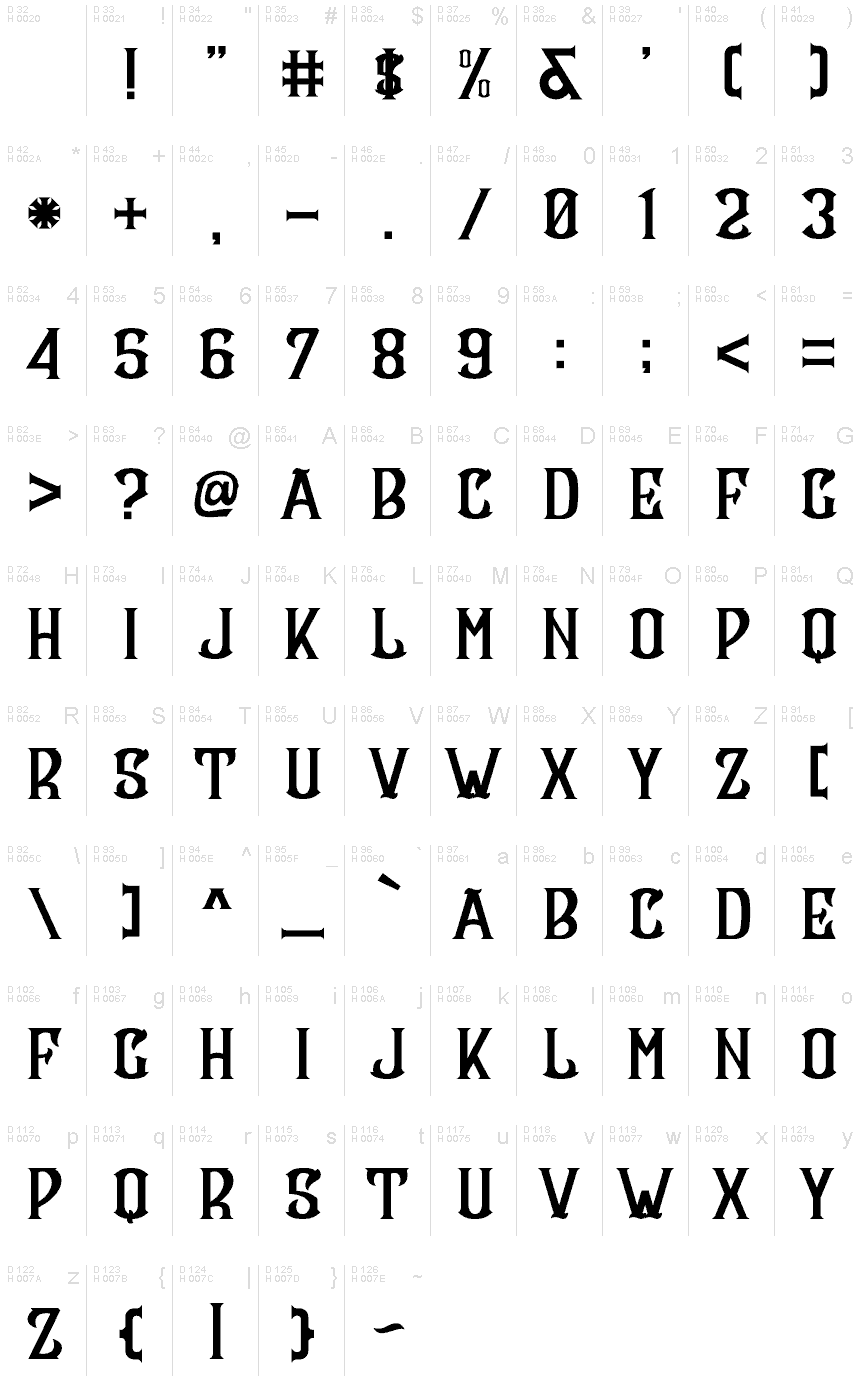
CS Maria
CS Maria font by Craft Supply Co. is a display font with a retro style and condensed width. Inspired by ornate, historic, and gothic influences, the font has a traditional look that carries decorative elements in every letter. In addition to its medieval vibe, it’s suitable for decorative projects intended to stand out.